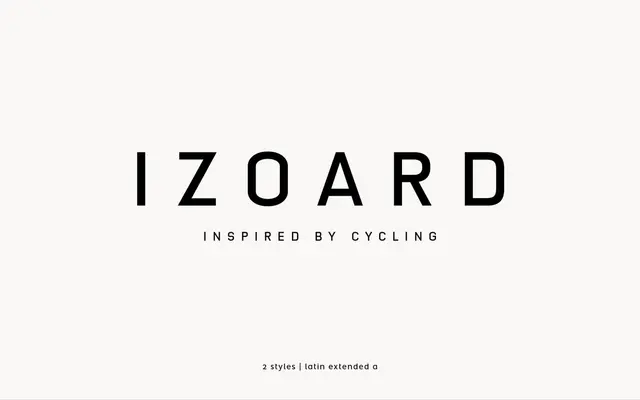
Izoard
atipo foundry · Raul Garcia del Pomar, Ismael Gonzalez · 2017
A geometric stencil display family by atipo with a standard Izoard and a softer Izoard Soft cut, named for the Alpine climb.
A geometric stencil display family by Raul Garcia del Pomar and Ismael Gonzalez at atipo foundry, named for the Col d'Izoard. Two cuts are offered, Izoard and Izoard Soft, with case-sensitive forms, true small caps, fractions, superiors and ordinals in the OpenType layer. Sits well on sports, outdoor, technical and editorial display where you want a constructed, slightly mechanical voice.
A geometric display family with two cuts, Izoard and Izoard Soft, sitting in stencil and rounded territory with a sporting, technical feel. Named for the Col d'Izoard climb in the Alps, it suits sports, outdoor and editorial display.